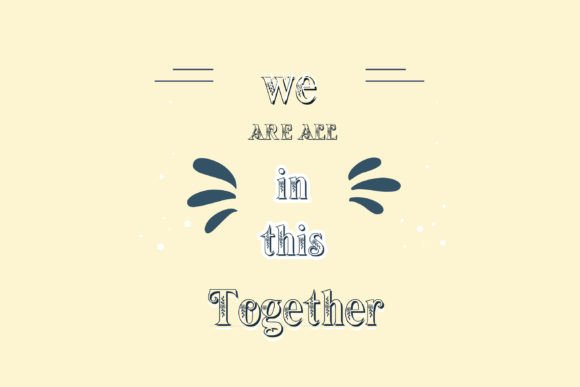
Astoria Formal is a stylish and elegant font that has a classic look. Its letters are hollow inside, and it includes beautiful floral decorations. Perfect for fancy invitations and sophisticated designs.